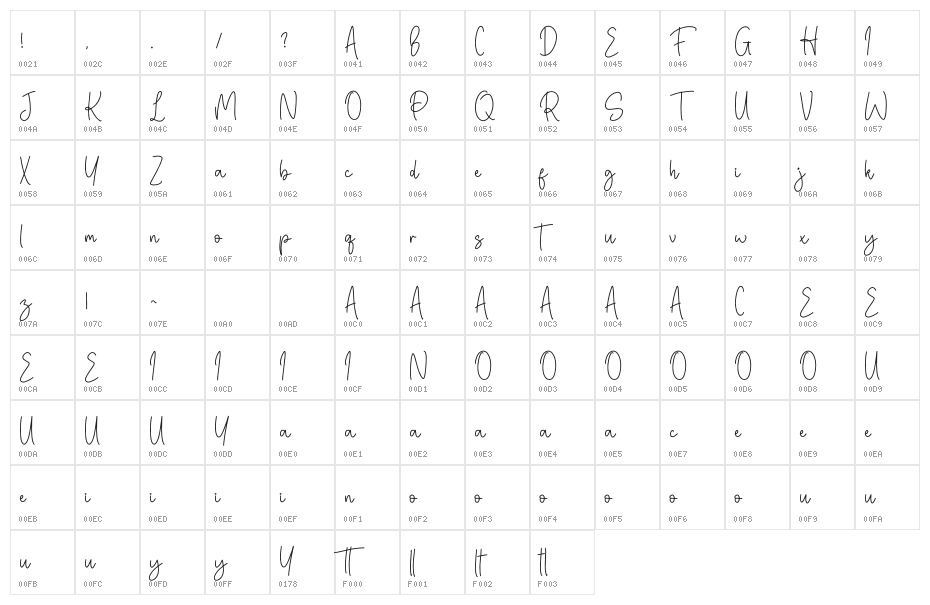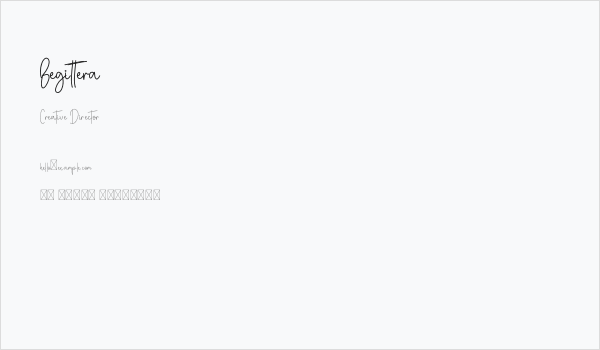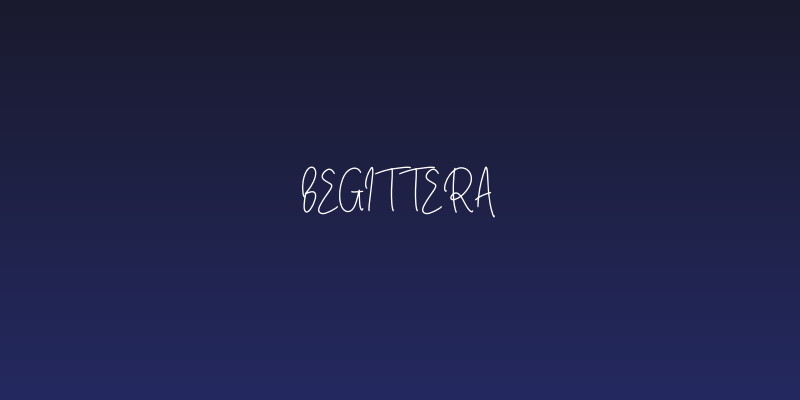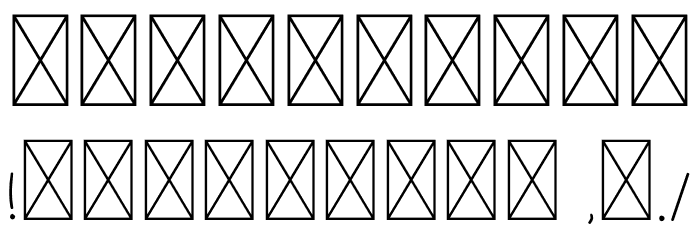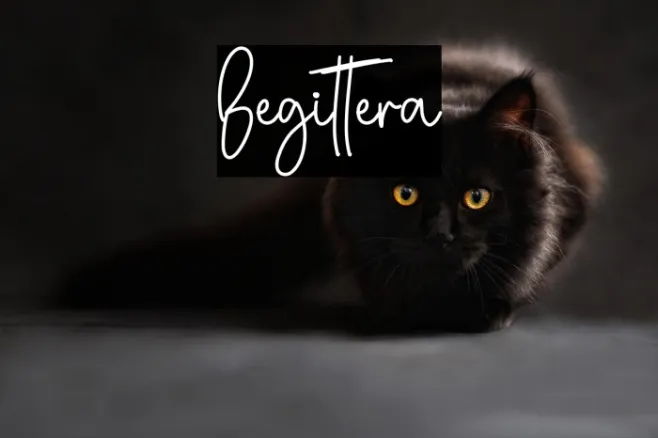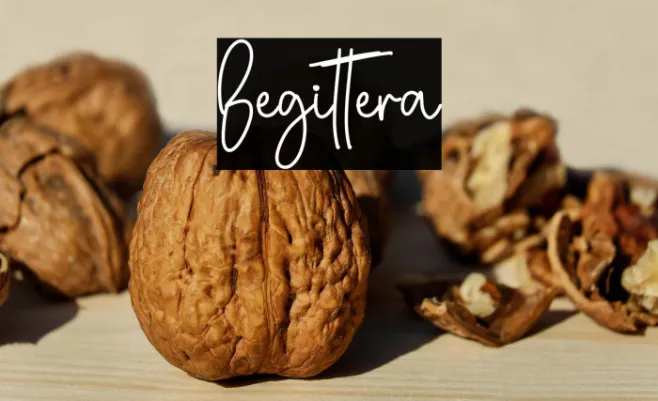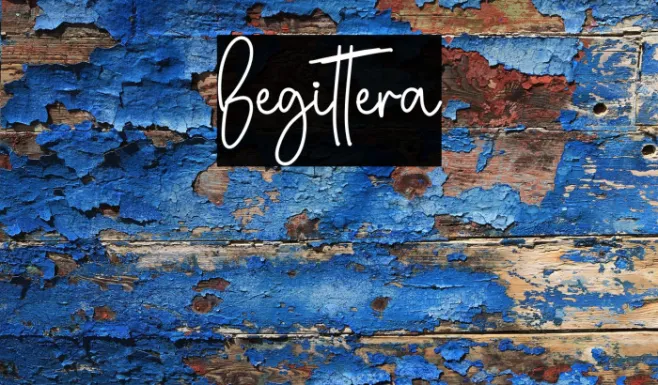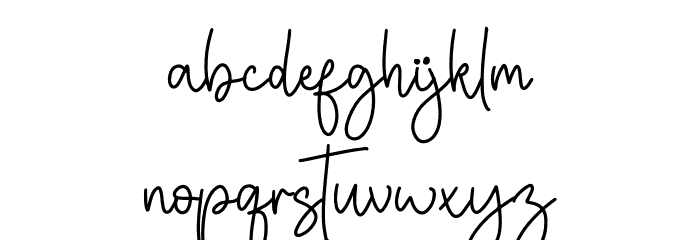
Begittera Font
Begittera Description
This font features a playful and casual handwritten style, characterized by its flowing, cursive-like strokes. The uppercase letters are tall and slightly narrow, with a consistent slant that adds a dynamic feel. The lowercase letters maintain the same slant, with rounded forms and occasional loops that enhance the font's informal and friendly appearance. The overall design is light and airy, making it suitable for projects that require a personal touch. The font's simplicity and elegance are balanced by its unique character shapes, which give it a distinctive personality.
| Use Case | Logos, Headlines, Personal projects |
| Proposed Projects | Ideal for greeting cards, invitations, personal branding, and social media graphics. |